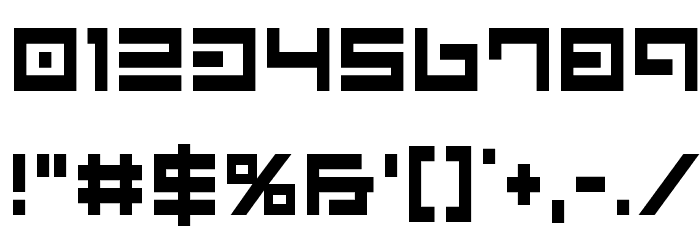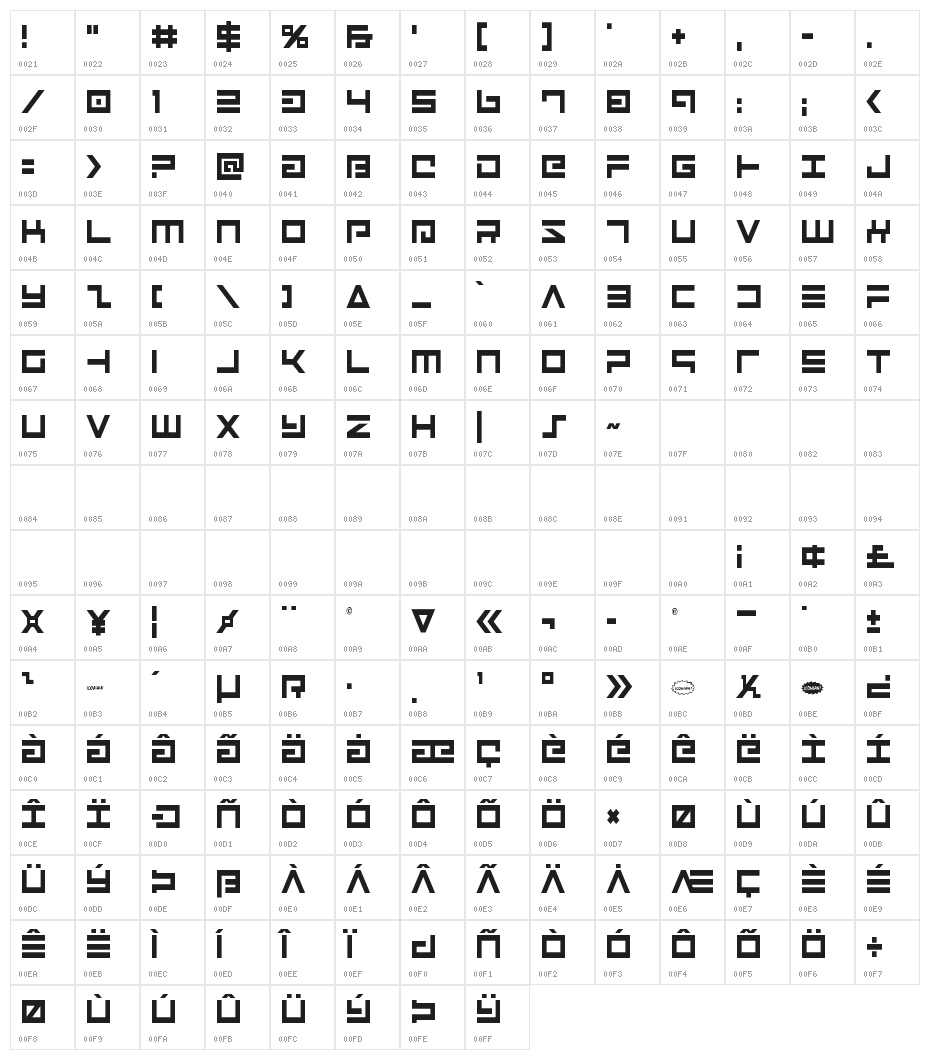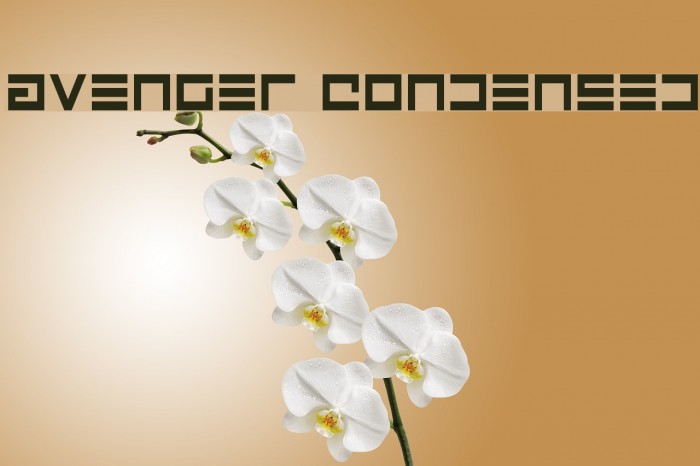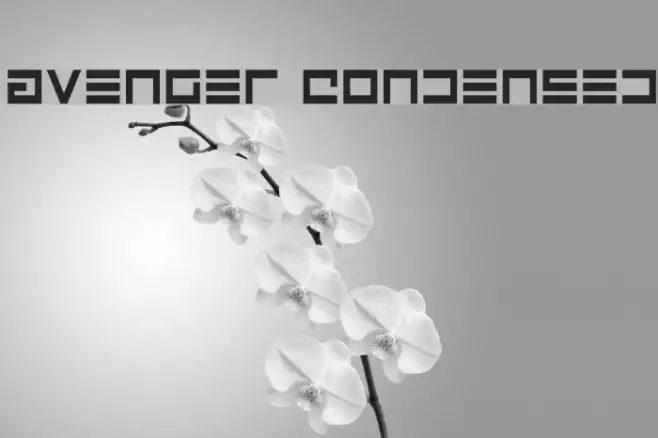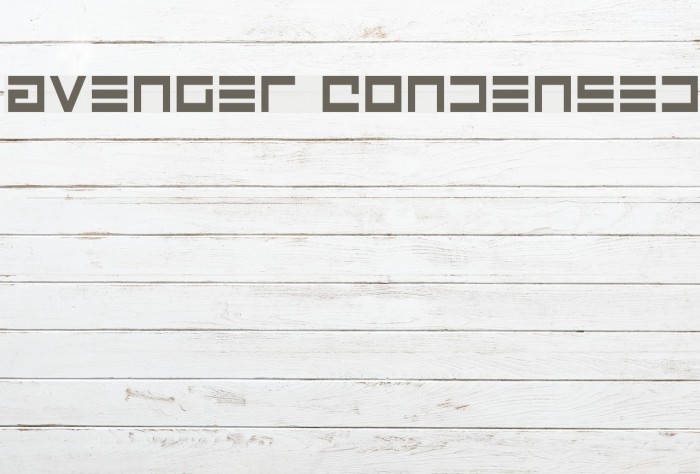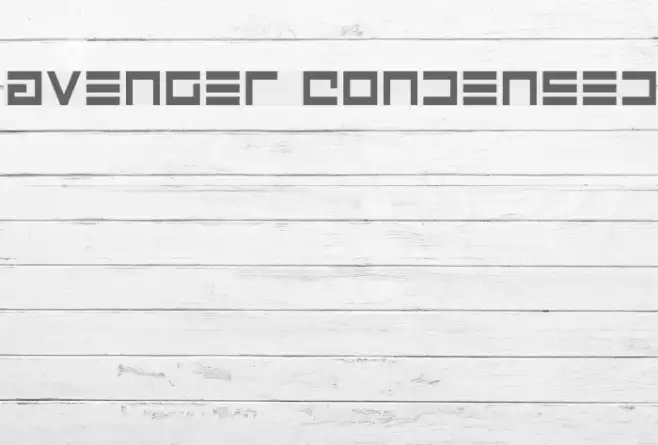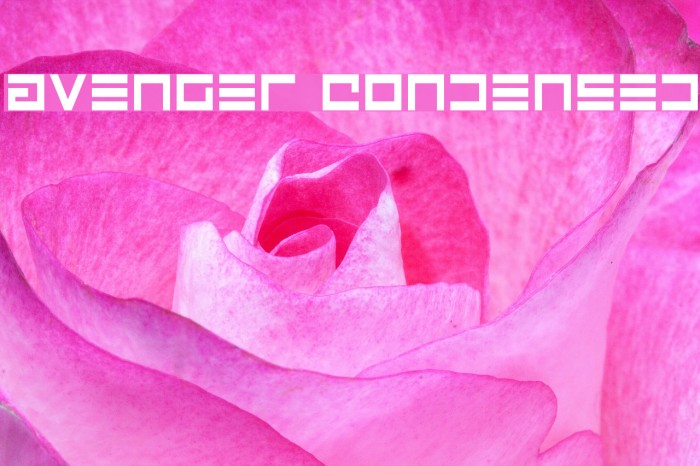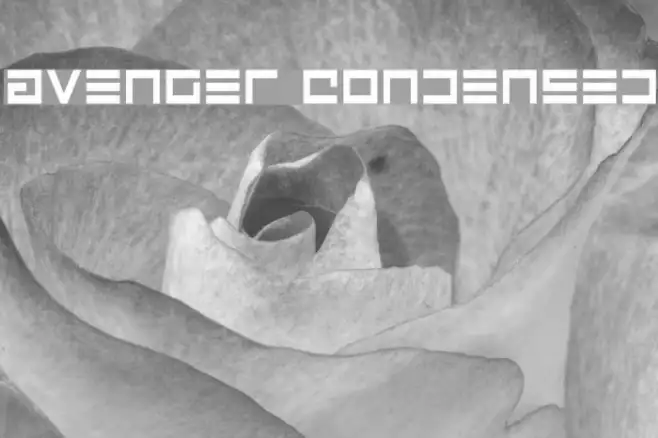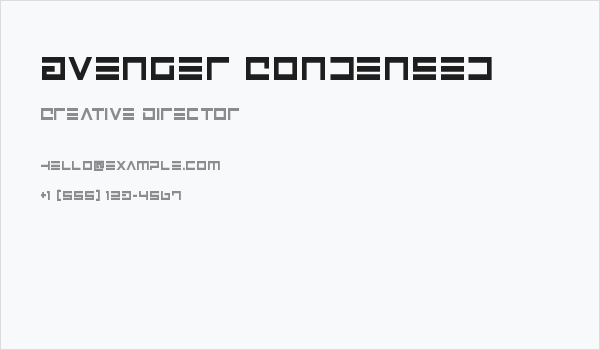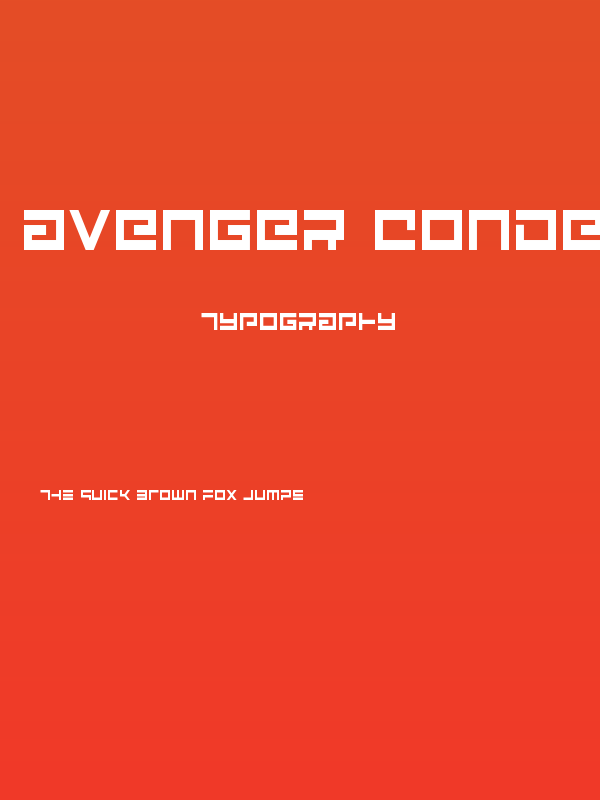
Avenger Condensed Font
Avenger Condensed Description
This font features a bold, geometric design with a distinctly futuristic and angular appearance. Each character is constructed with sharp edges and straight lines, creating a sense of precision and modernity. The uppercase and lowercase letters maintain a consistent height, contributing to a uniform look across the typeface. The numerals and special characters are designed with the same geometric style, ensuring cohesion throughout. This font's condensed width allows for efficient use of space, making it suitable for various design applications where space is a premium.
| Proposed Projects | Ideal for sci-fi themed projects, tech branding, video game titles, and modern posters. |